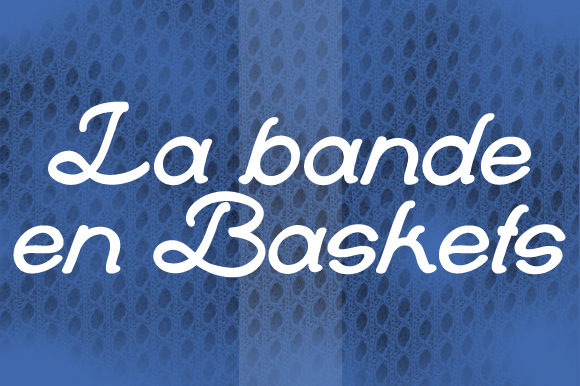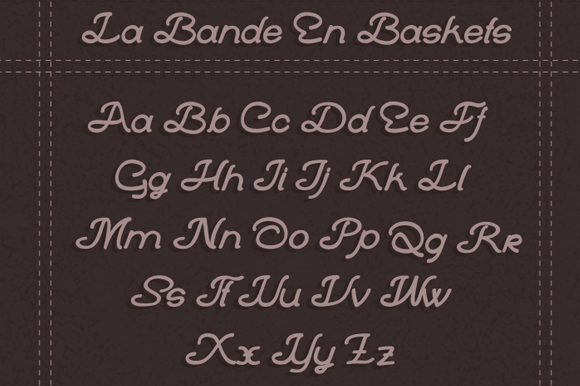
La Bande En Baskets Font
About La Bande En Baskets Font
La Bande En Baskets is an elegant handwritten font. It will elevate a wide range of design projects to the highest level, be it branding, headings, wedding designs, invitations, signatures, logos, labels, and much more!